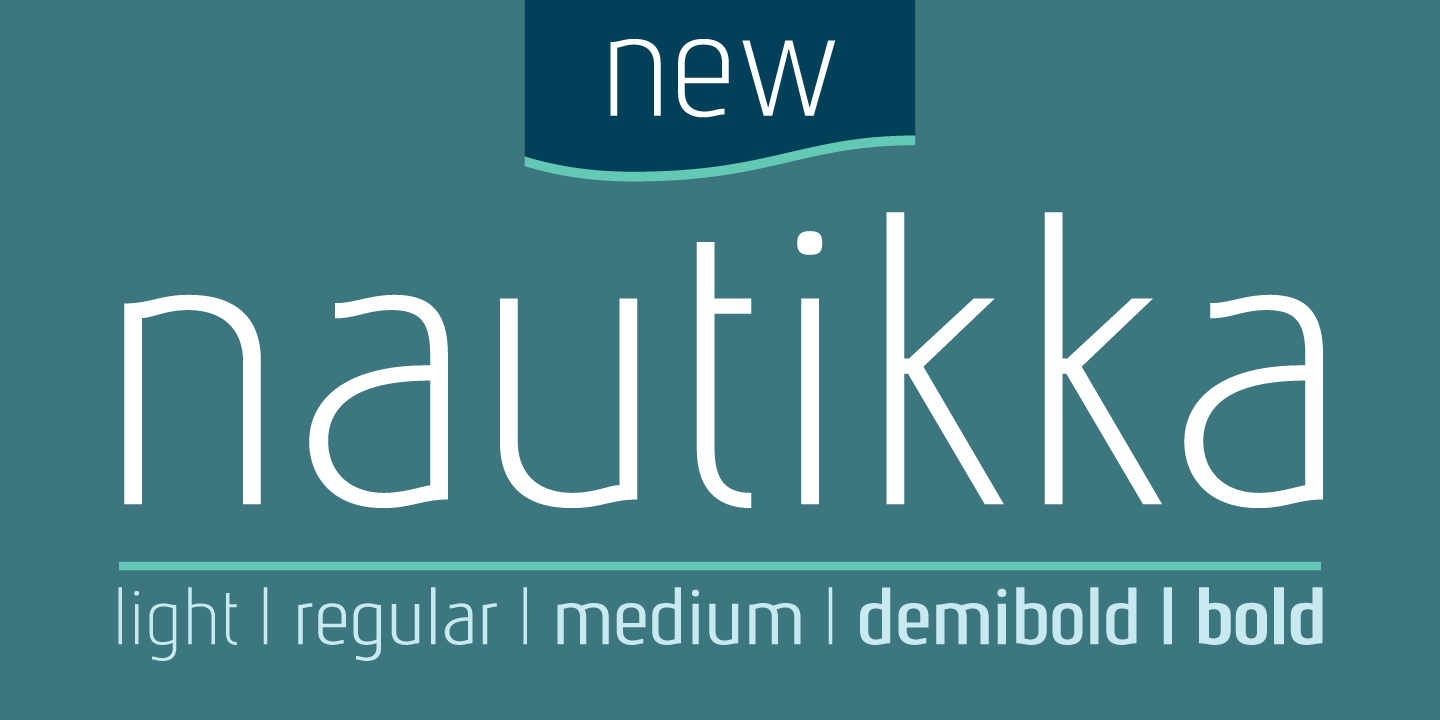
The Nautikka Font is perfect for maritime company logos, sailing club branding, yacht charter marketing, oceanfront restaurant menus, marine equipment signage, coastal tourism advertising, naval academy materials, harbor master documents, and seaside resort promotions.
What makes the Nautikka Font so exciting is its authentic maritime heritage that instantly evokes the timeless romance of the sea and the adventurous spirit of nautical exploration. This captivating typeface embodies the classic elegance of traditional seafaring culture while maintaining the professional credibility that modern marine businesses require. The font's nautical character communicates the reliability and maritime expertise that ocean-loving audiences seek when choosing marine services and coastal experiences.
The Nautikka Font family includes Regular weight featuring complete uppercase and lowercase character sets, comprehensive numerical collections, essential punctuation marks, and maritime symbols that maintain the nautical aesthetic throughout your ocean-themed design projects.
Marine businesses and coastal organizations consistently select Nautikka Font Free Download for projects that require authentic maritime appeal and professional ocean-themed communication. This exceptional typeface excels in environments where establishing connection to nautical traditions and marine expertise is crucial for attracting sailing enthusiasts and coastal tourism customers. The font's seafaring character helps communicate the adventure and reliability that maritime audiences expect from established marine service providers.
The distinctive qualities of Nautikka Font reflect the proud traditions of maritime culture where seamanship and nautical knowledge have guided ocean exploration for centuries. Each character demonstrates the steady reliability and time-tested wisdom that characterizes successful marine operations and coastal businesses. The font's proportions and spacing create perfect balance between nautical authenticity and modern readability that contemporary marine enterprises require for effective customer communication.
Contemporary maritime enterprises appreciate how Nautikka Font communicates seafaring expertise and coastal authenticity. Whether designing promotional materials for yacht clubs, creating signage for marine supply stores, or developing branding for sailing schools, this font delivers the genuine character that distinguishes experienced marine businesses from landlubber operations. The typeface works exceptionally well for organizations emphasizing maritime tradition, ocean safety, and professional seamanship.
The versatility of Nautikka Font extends across multiple maritime applications and coastal marketing initiatives. Cruise lines utilize its nautical character for passenger information materials and onboard signage. Marine insurance companies choose it to communicate their understanding of maritime risks and ocean industry expertise. Coastal real estate agents rely on its authentic appearance to market waterfront properties to sailing enthusiasts and ocean lovers.
Digital maritime platforms benefit from Nautikka Font's optimized performance across various marine applications and nautical communication channels. The font maintains its seafaring character whether displayed on marina websites, mobile sailing apps, or digital navigation systems. This technical reliability ensures consistent brand presentation across all maritime communication platforms and ocean-related digital services.
The emotional appeal of Nautikka Font resonates with audiences who feel drawn to the freedom and adventure of life on the water. The typeface serves as a visual invitation to explore maritime experiences and coastal adventures that helps marine businesses build passionate relationships with sailing enthusiasts and ocean-loving customers. This connection to nautical dreams and maritime heritage makes it invaluable for establishing authentic marine brand identities.
Maritime marketing specialists and coastal design professionals recognize Nautikka Font as an essential tool for authentic nautical branding. The font captures the essence of maritime excellence while making seafaring tradition accessible to contemporary marine businesses who want to communicate their deep connection to ocean culture and nautical expertise in today's competitive maritime marketplace.